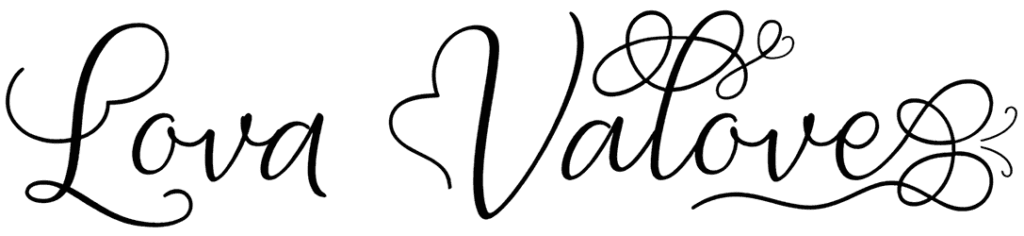
Lova Valove Font
Lova Valove is a true blend of elegance and classic that carries a sense of softness, delicacy, dynamism, and precision. This angel font has curved and elongated characters, so it would help you to take your social media…
Lova Valove is a true blend of elegance and classic that carries a sense of softness, delicacy, dynamism, and precision. This angel font has curved and elongated characters, so it would help you to take your social media posts, product packaging, logos, business cards, and greeting cards to the next level.